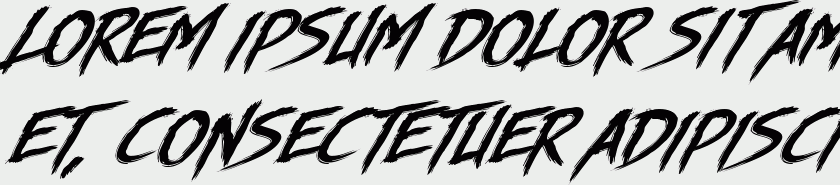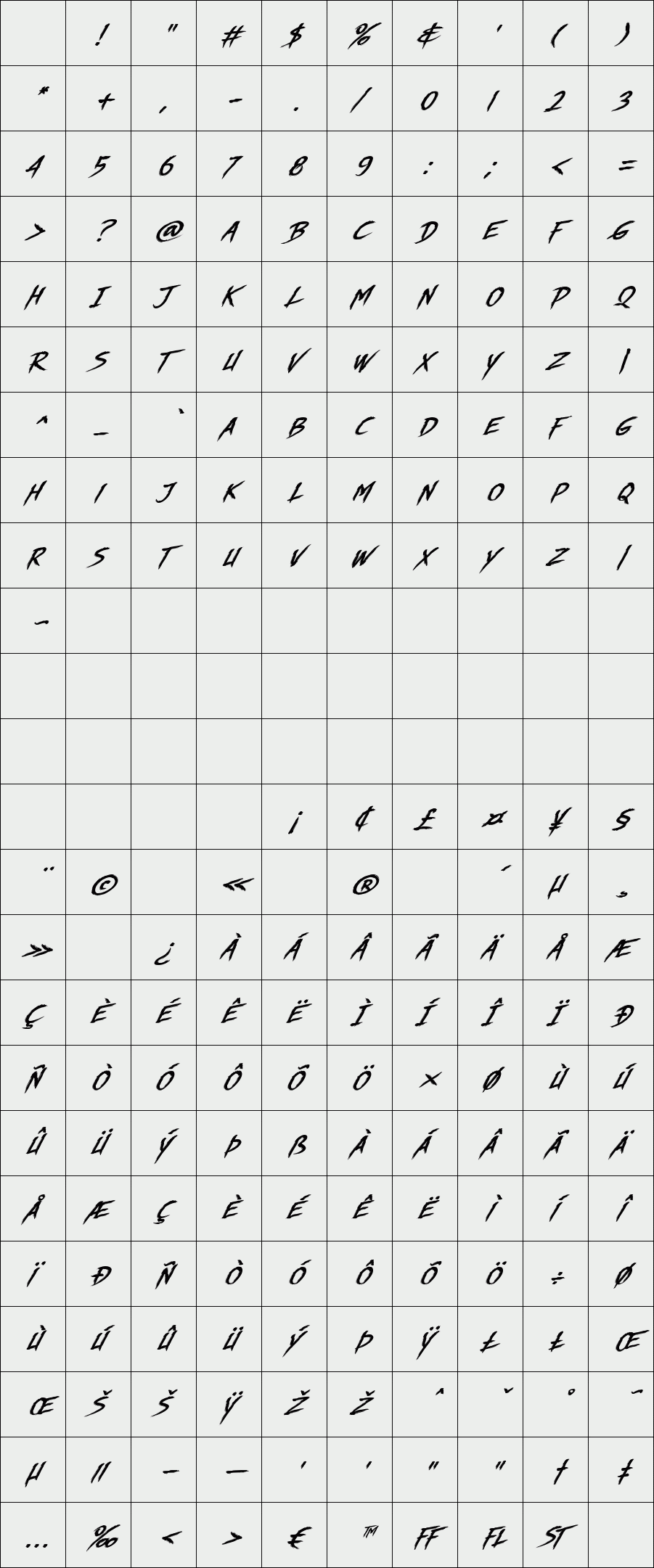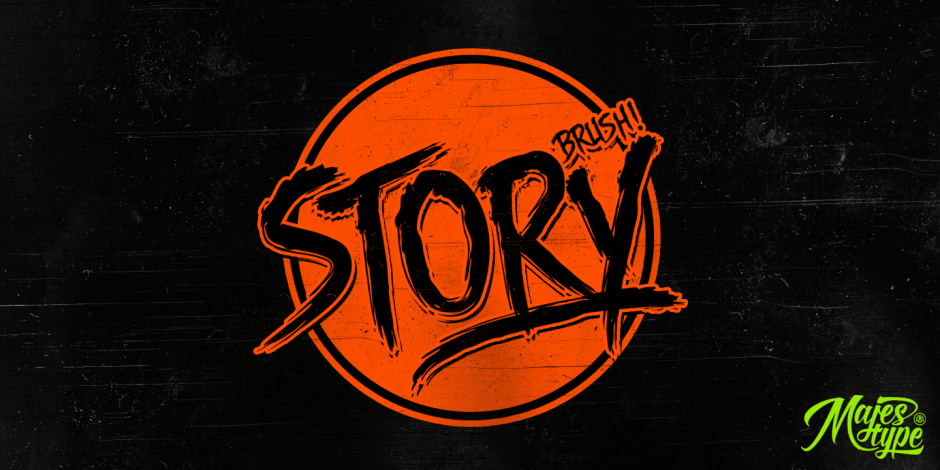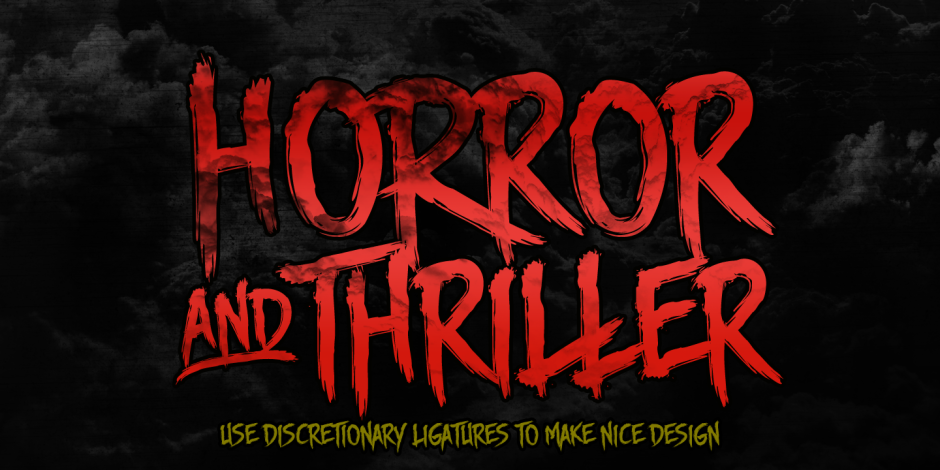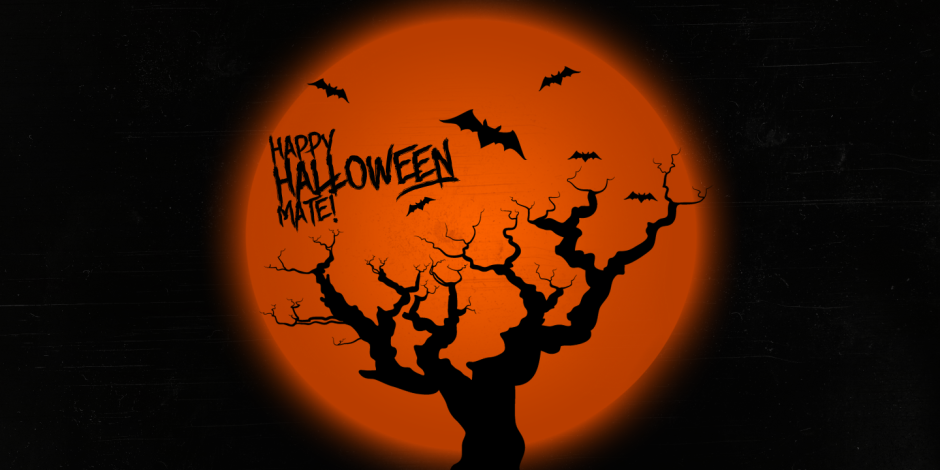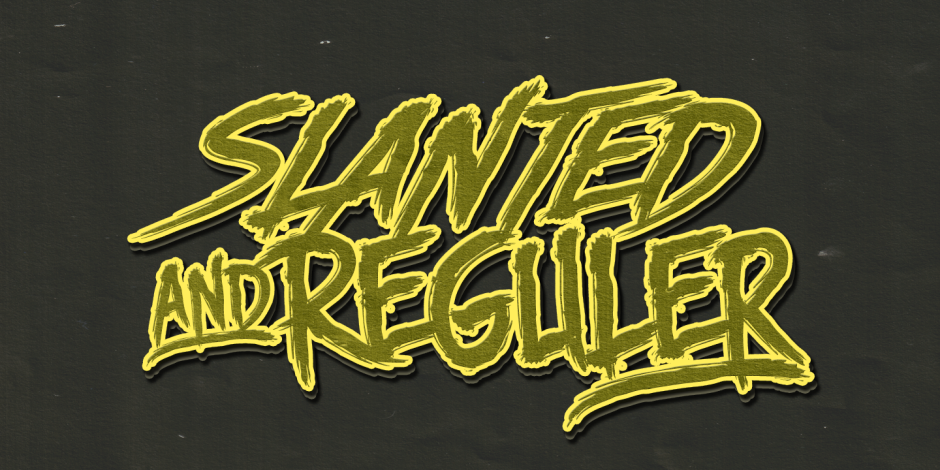
Story Brush
/ Story Brush Slanted
Story Brush is the high detailed brush font that has over 240 glyphs. Coming with 2 Verison Regular and slanted. This font is equipped with OpenType feature for make custom feel for your design. This font is designed for t-shirts design, logos, horror design, grunge & etc.